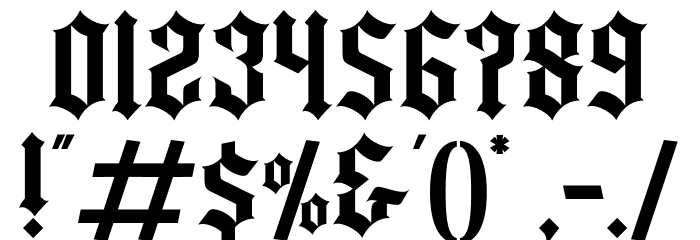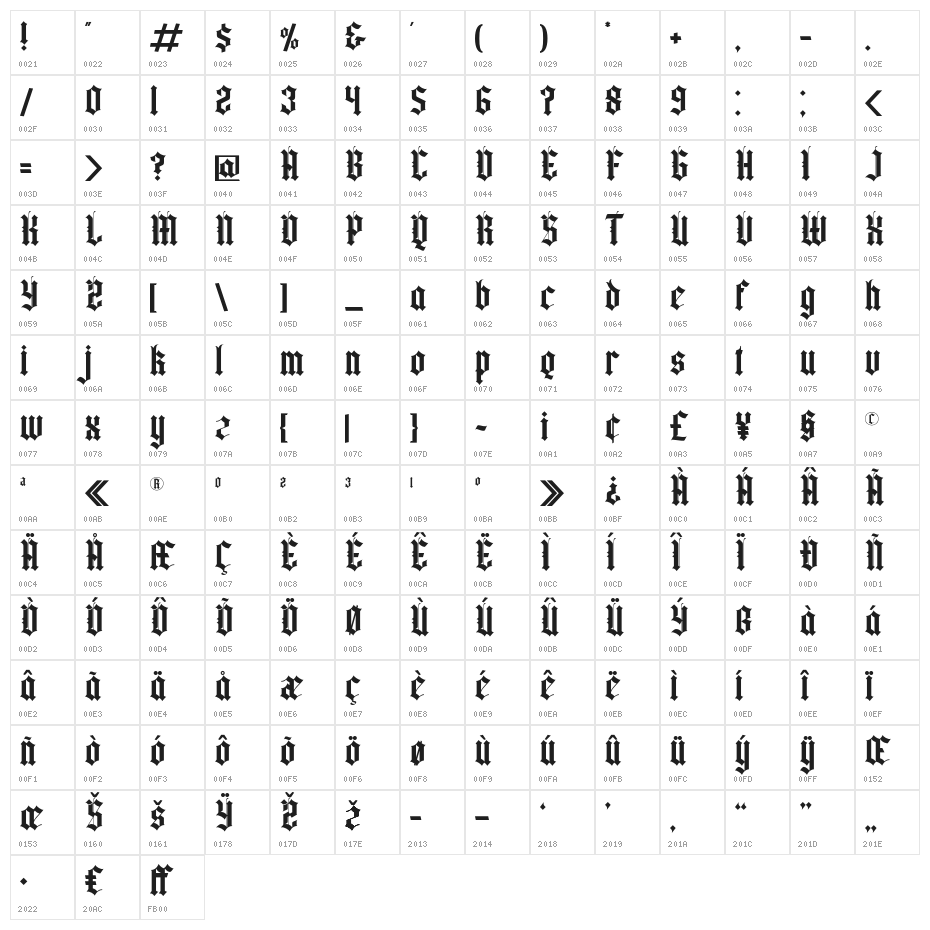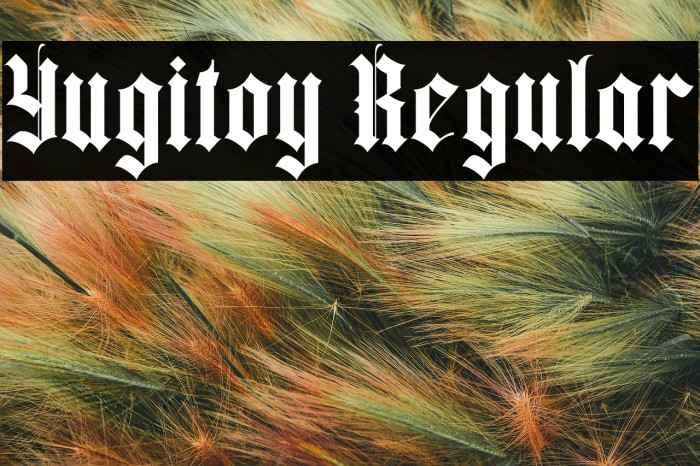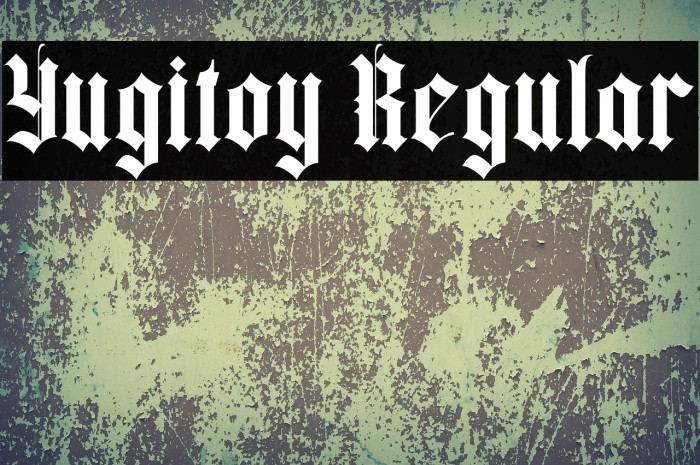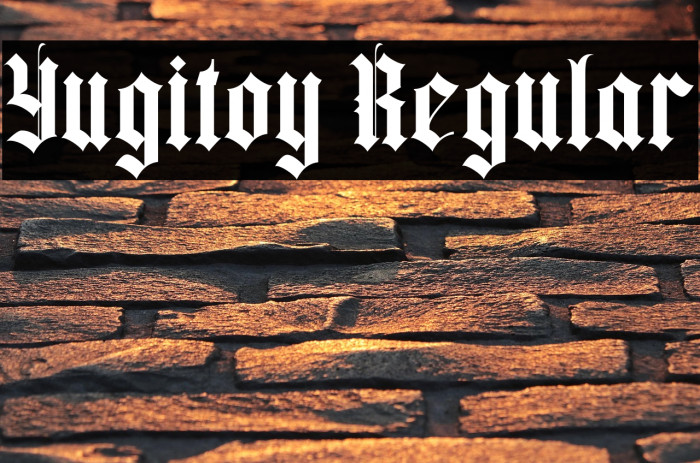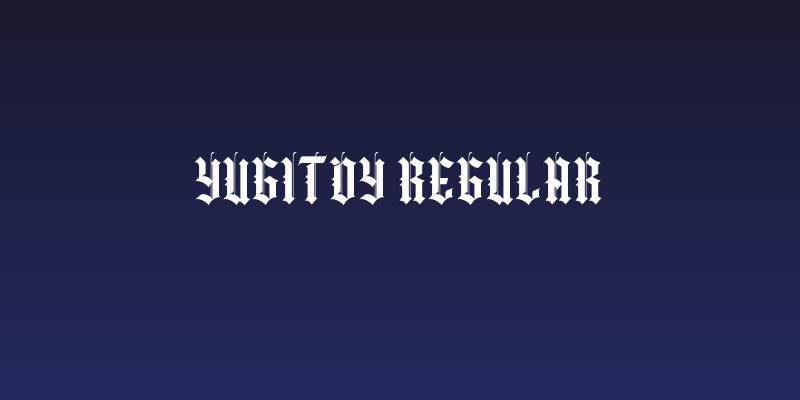
Yugitoy Regular Font
Yugitoy Regular Description
This font features a bold and dramatic blackletter style, reminiscent of traditional Gothic script. The characters are characterized by sharp, angular lines and intricate detailing, creating a sense of historical elegance and formality. The uppercase letters are particularly striking, with their tall, narrow forms and pointed serifs. The lowercase letters maintain the same stylistic elements, ensuring consistency throughout the typeface. Numbers and special characters are designed with the same attention to detail, making them seamlessly integrate with the alphabetic characters. This font's distinct style makes it highly suitable for projects that require a touch of medieval or vintage flair.